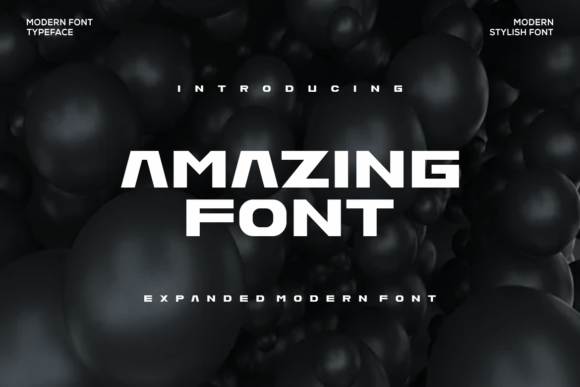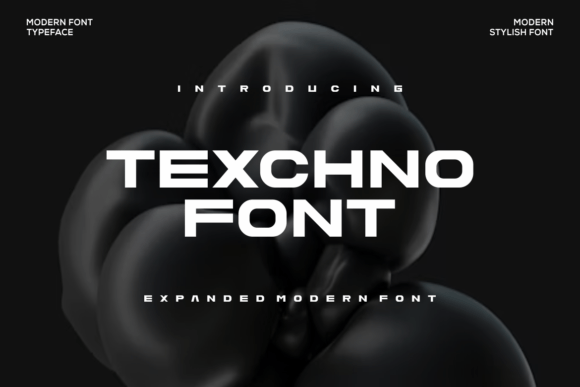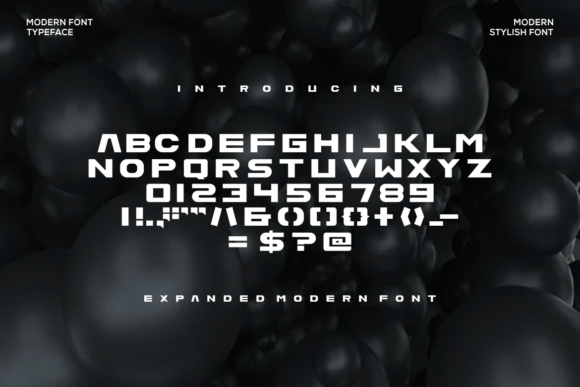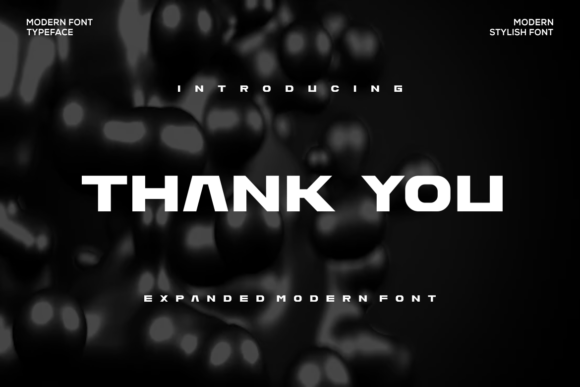
Introduction to Cakrox Font
As a designer, there’s no feeling quite like the rush of inspiration that hits when you’re working on a creative project. You’re brainstorming ideas, experimenting with different color palettes, and pushing the boundaries of what’s possible. And then, it happens – you stumble upon the perfect font, the one that brings your vision to life. For many designers, that font is now known as Cakrox Font, a bold and authentic display font that’s about to revolutionize the world of design.
Whether you’re a seasoned pro or just starting out, Cakrox Font is a game-changer. Its high-quality design and transparent background make it the perfect resource for any creative project, from logos and t-shirt printing to digital products and more. And the best part? You can download it for free, making it an essential addition to your design toolkit.
Key Features of Cakrox Font
- Designed with a modern aesthetic, the Cakrox Font is perfect for use in logos, branding, and marketing materials.
- Unique characteristics include its bold and playful feel, making it an excellent choice for creative projects that require a statement font.
Honest Review: Cakrox Font
As a designer, I’m always on the lookout for high-quality design resources that can elevate my creative projects. Recently, I came across the Cakrox Font, and I’m excited to share my thoughts on this free download.
- ✨ High-quality typography: The Cakrox Font boasts a clean and modern design that’s perfect for a variety of creative projects.
- ✨ Versatile use: This font can be used for both digital and print media, making it a great addition to any design arsenal.
- ✨ Transparent background: The font’s transparent background makes it easy to overlay on any image or design element.
- ⚠️ Limited font weights: The Cakrox Font only comes in a few font weights, which may limit its use in certain design projects.
- ⚠️ Not suitable for small text: The font’s design may not be ideal for small text, as it can become difficult to read.
Overall, I’m impressed with the Cakrox Font, and I think it’s a great addition to any design resource library. While it may have some limitations, its high-quality typography and versatile use make it a valuable tool for any creative project.
Common Use Cases for Cakrox Font
The Cakrox Font is perfect for a variety of creative projects, including graphic design, digital art, and print design. You can use it to create logos, business cards, brochures, and other marketing materials. The Cakrox Font is also great for creating social media graphics, presentations, and documents.